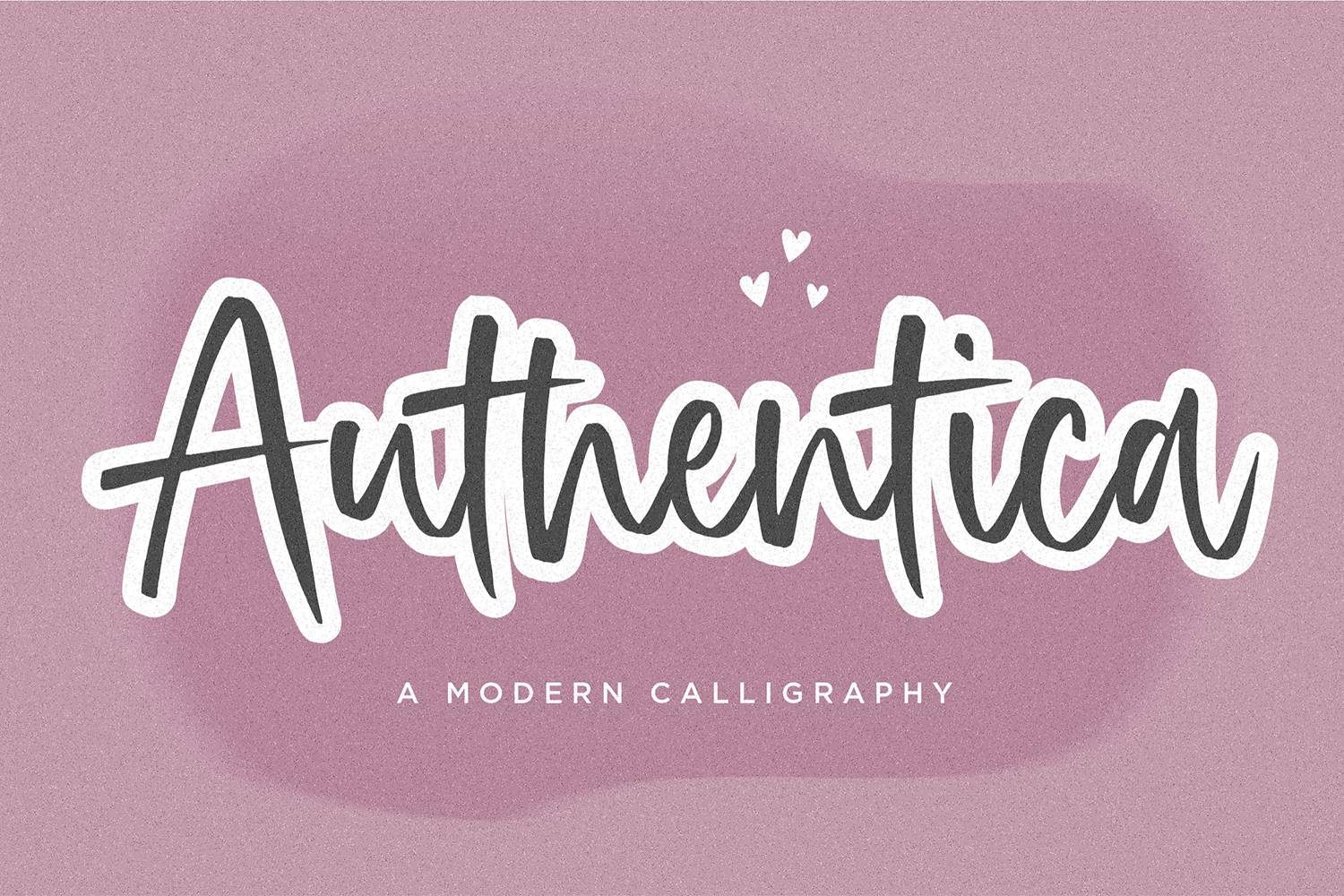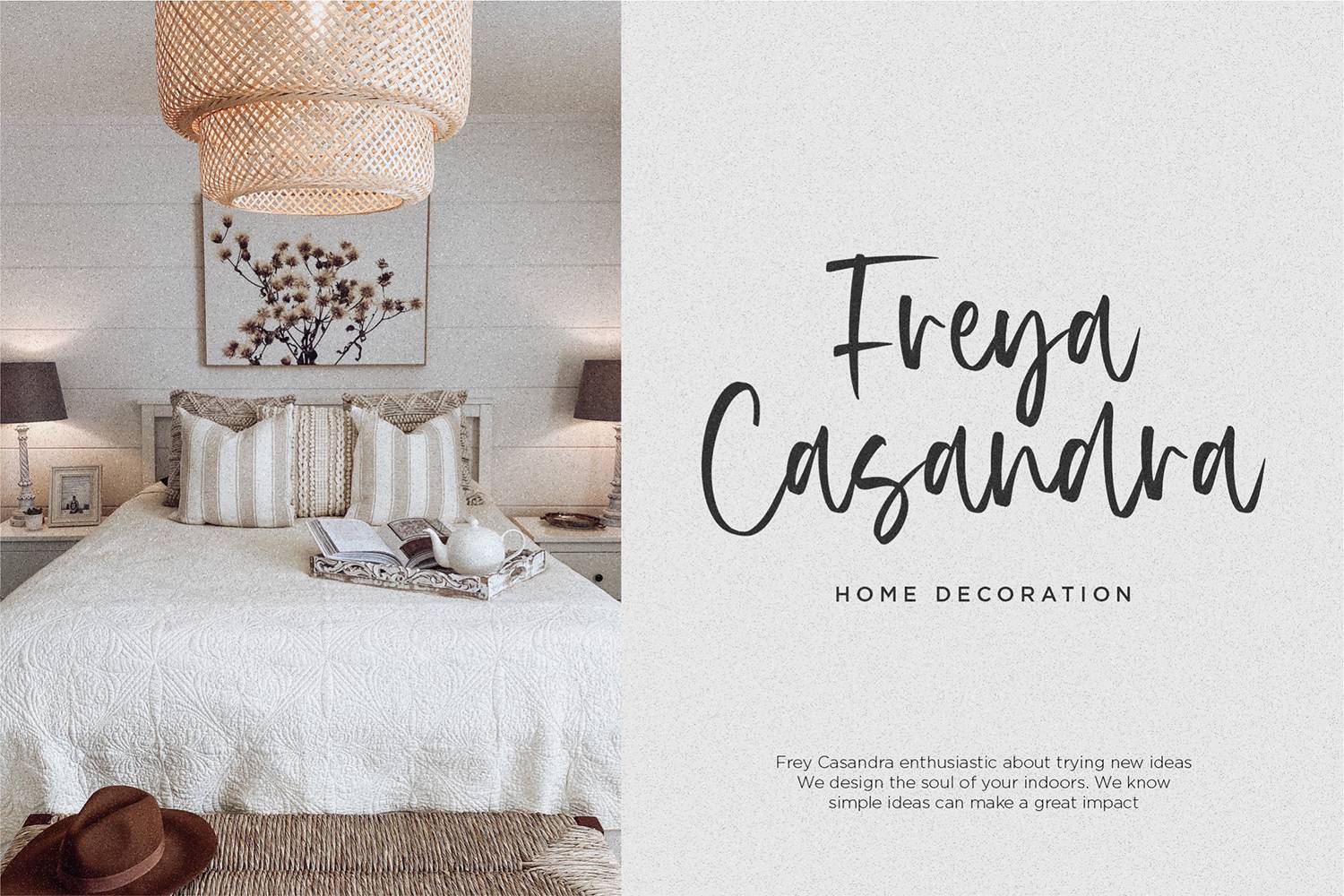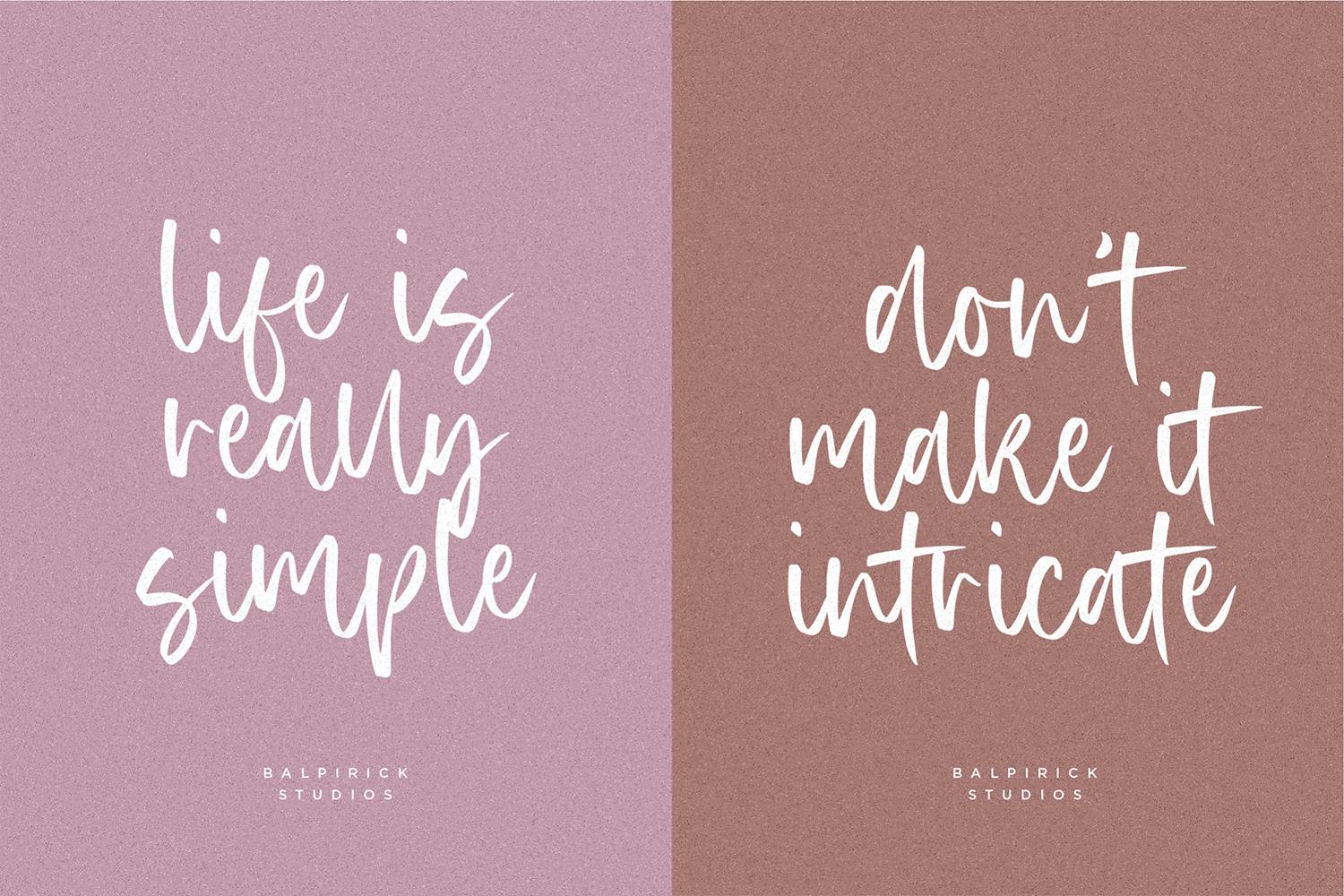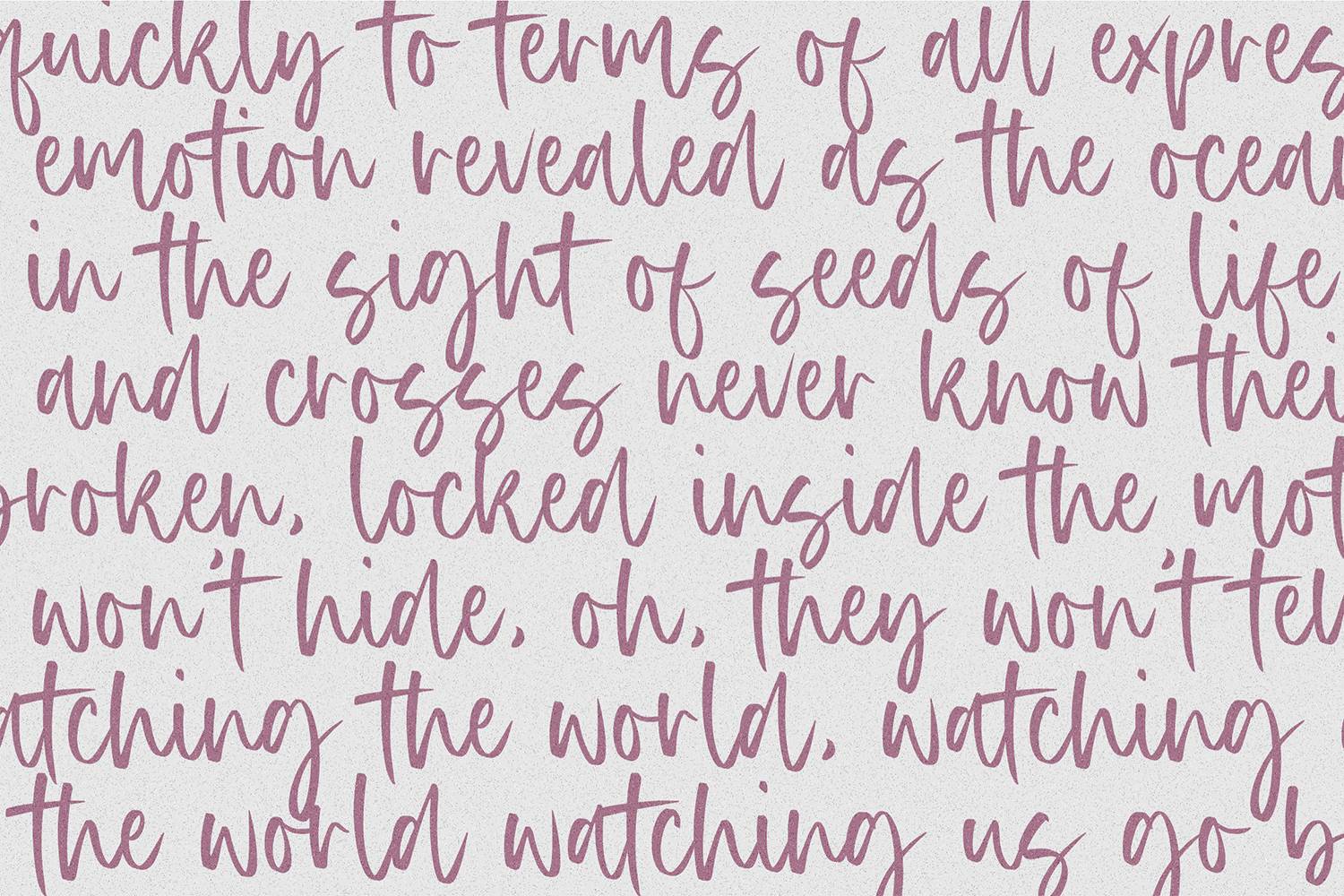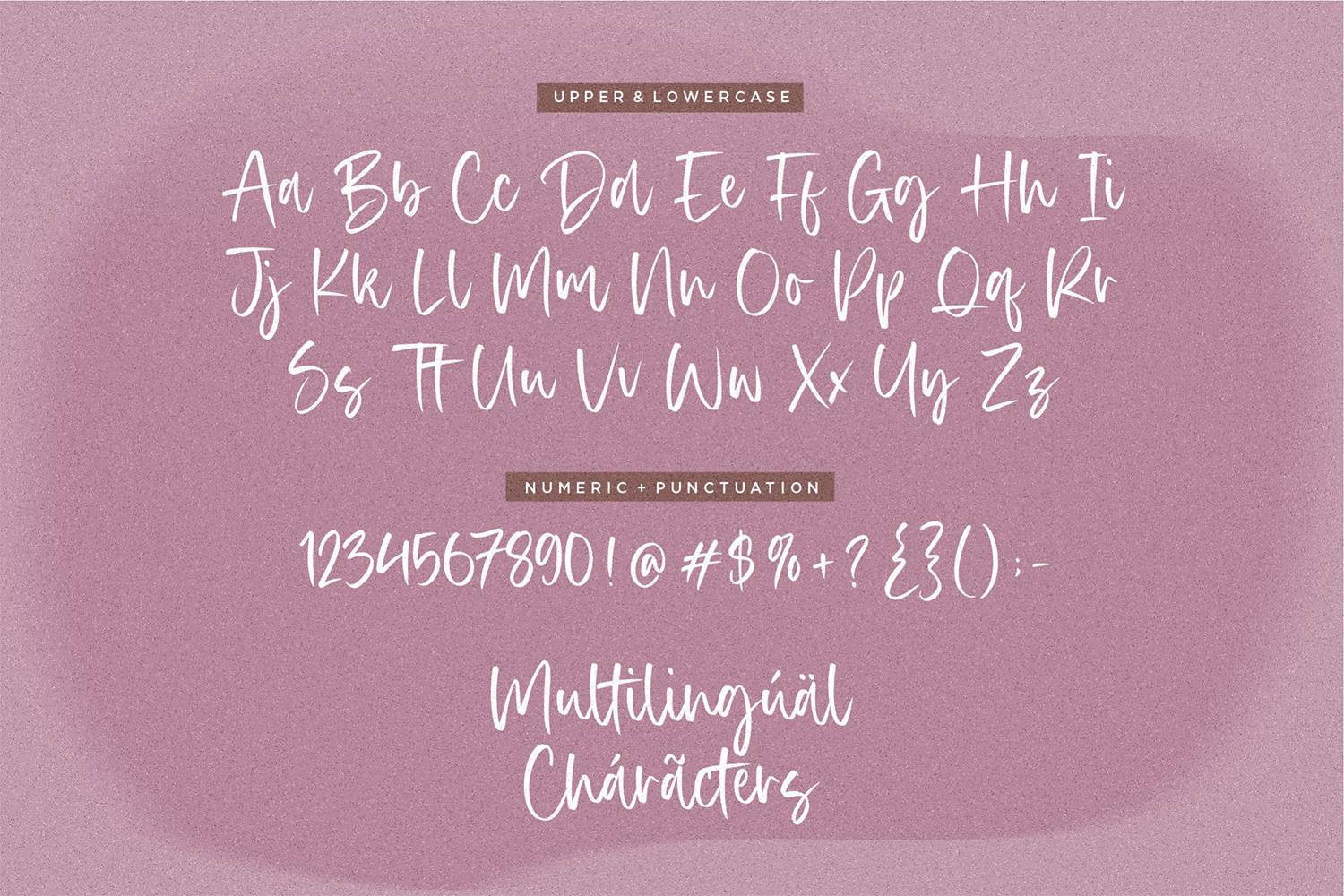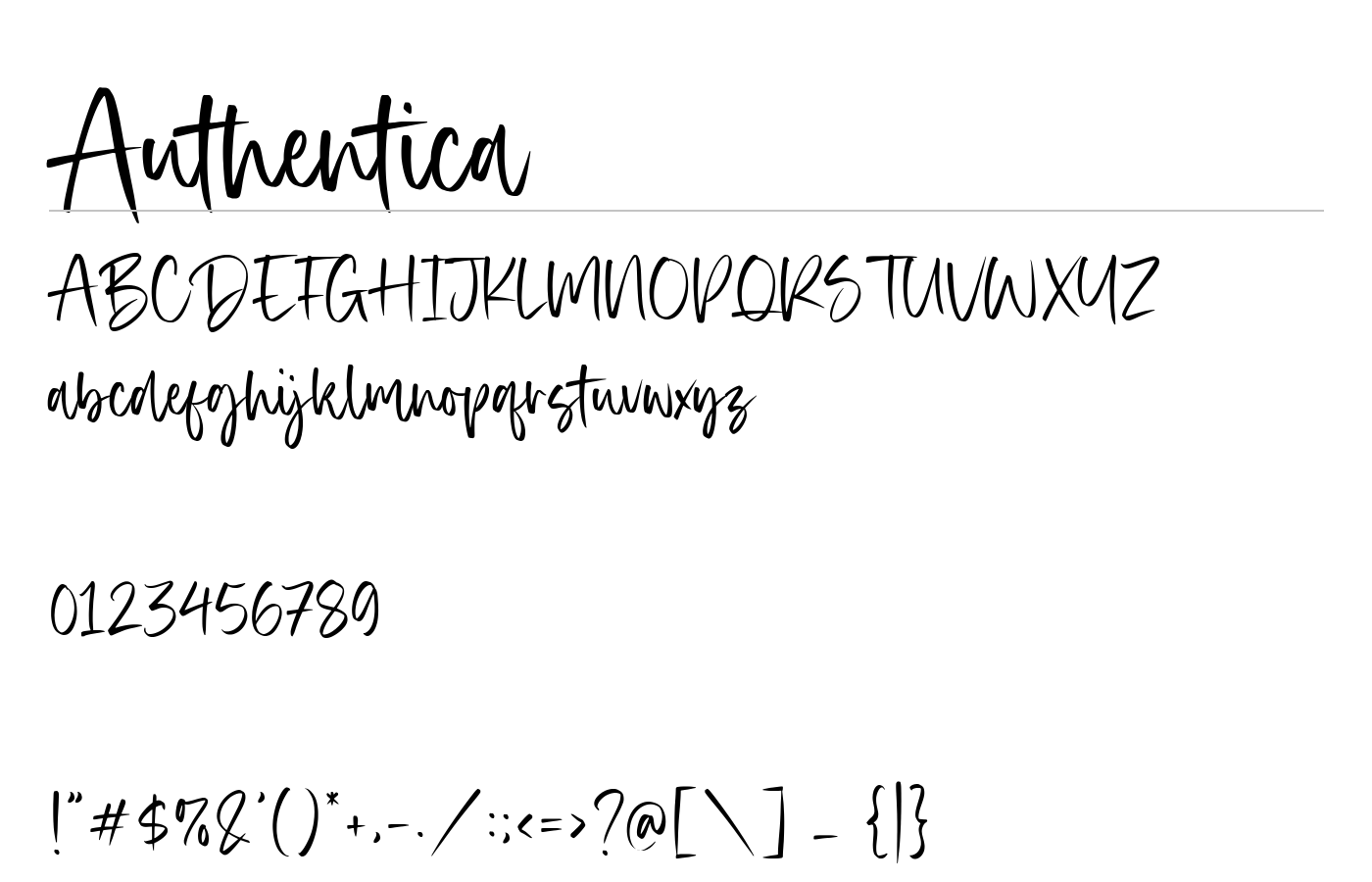
Authentica is a casual, handwritten script font that features a lively, natural flow with medium contrast and slender strokes. Its tall, slightly condensed letterforms and clear lowercase shapes make it approachable and readable, perfect for adding a personal, friendly touch to branding, invitations, and social media graphics. This font works well when you want to convey authenticity and warmth while staying modern and stylish.
Authentica Font
About Authentica Font